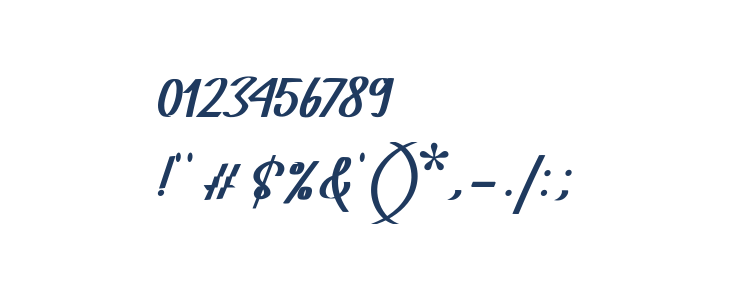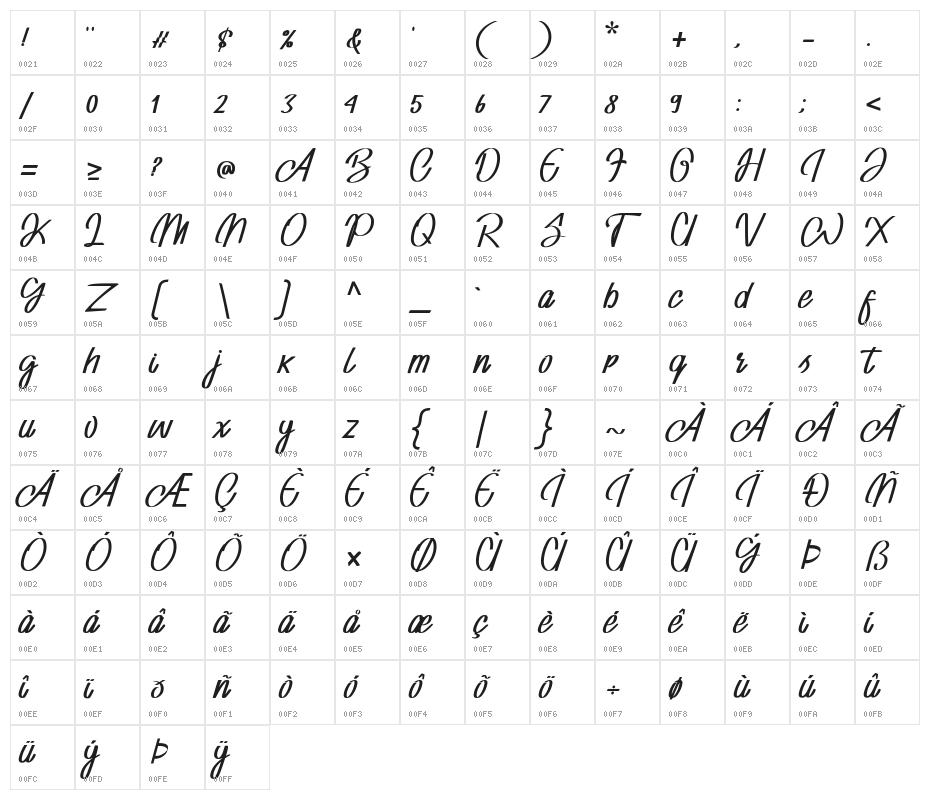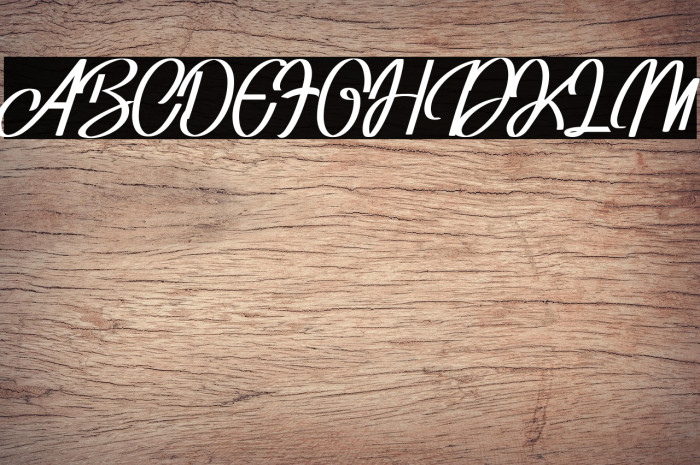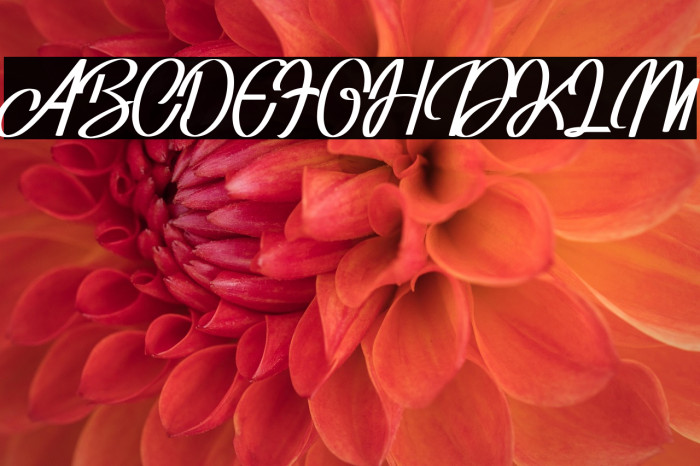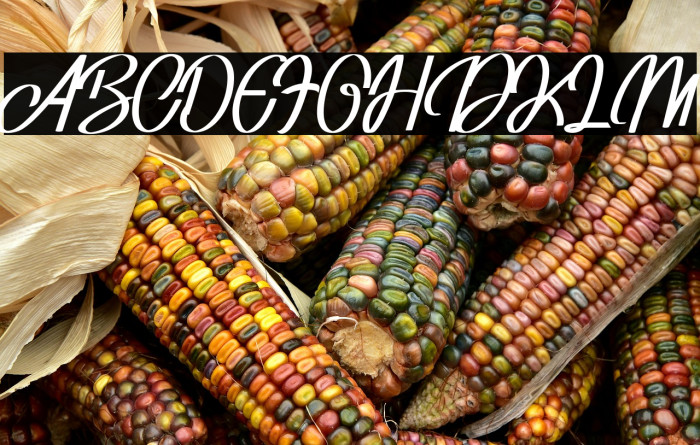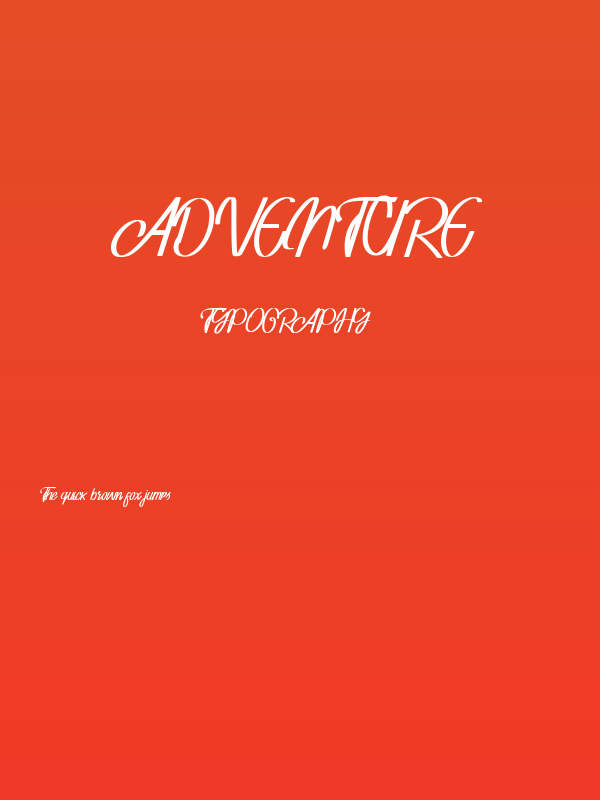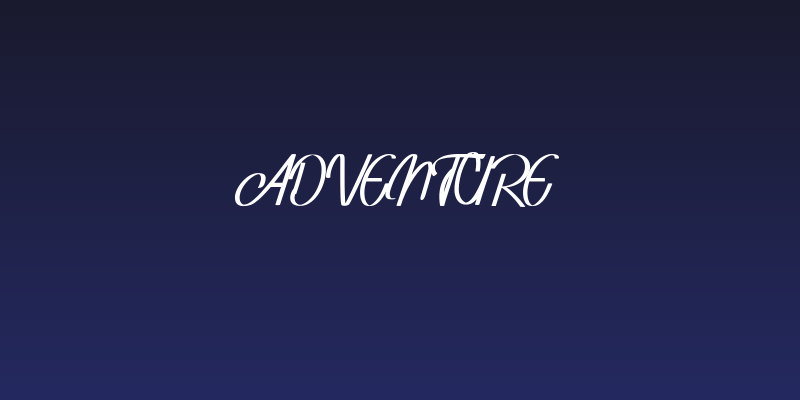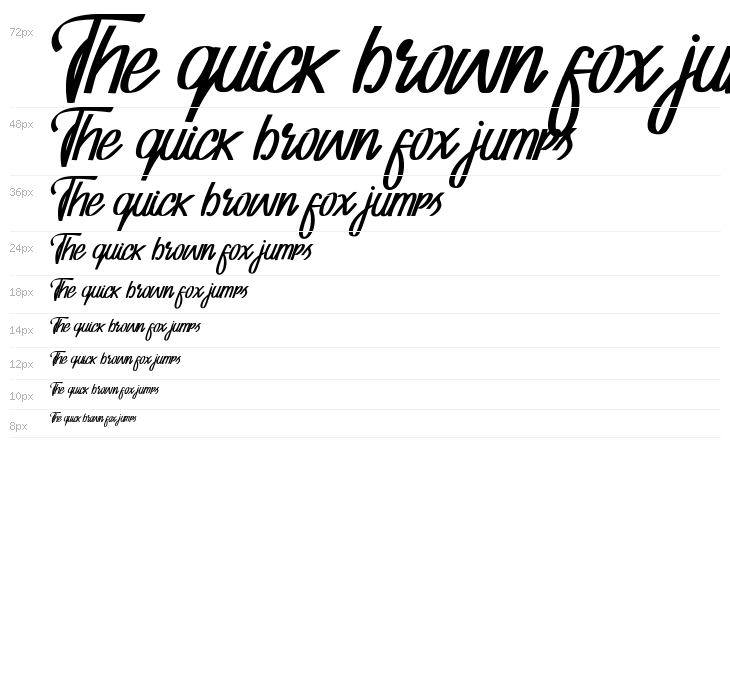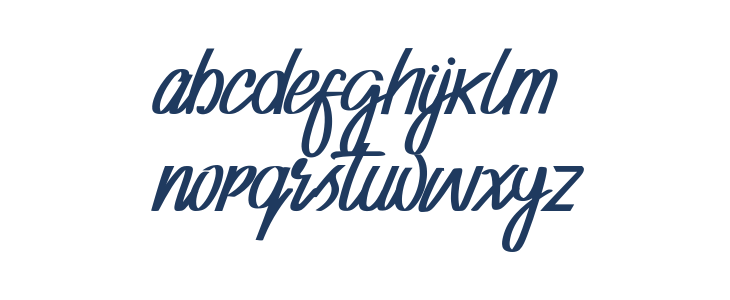
Adventure Font
Adventure Description
This font exhibits a dynamic and flowing script style, characterized by its elegant and cursive letterforms. The uppercase letters are bold and slightly slanted, giving a sense of movement and sophistication. The lowercase letters maintain a consistent flow, with smooth connections between each character, enhancing its readability. The numerals are distinct and maintain the same cursive style, ensuring uniformity across the character set. Special characters are well-integrated, maintaining the overall aesthetic of the font. This font is ideal for projects that require a touch of elegance and flair.